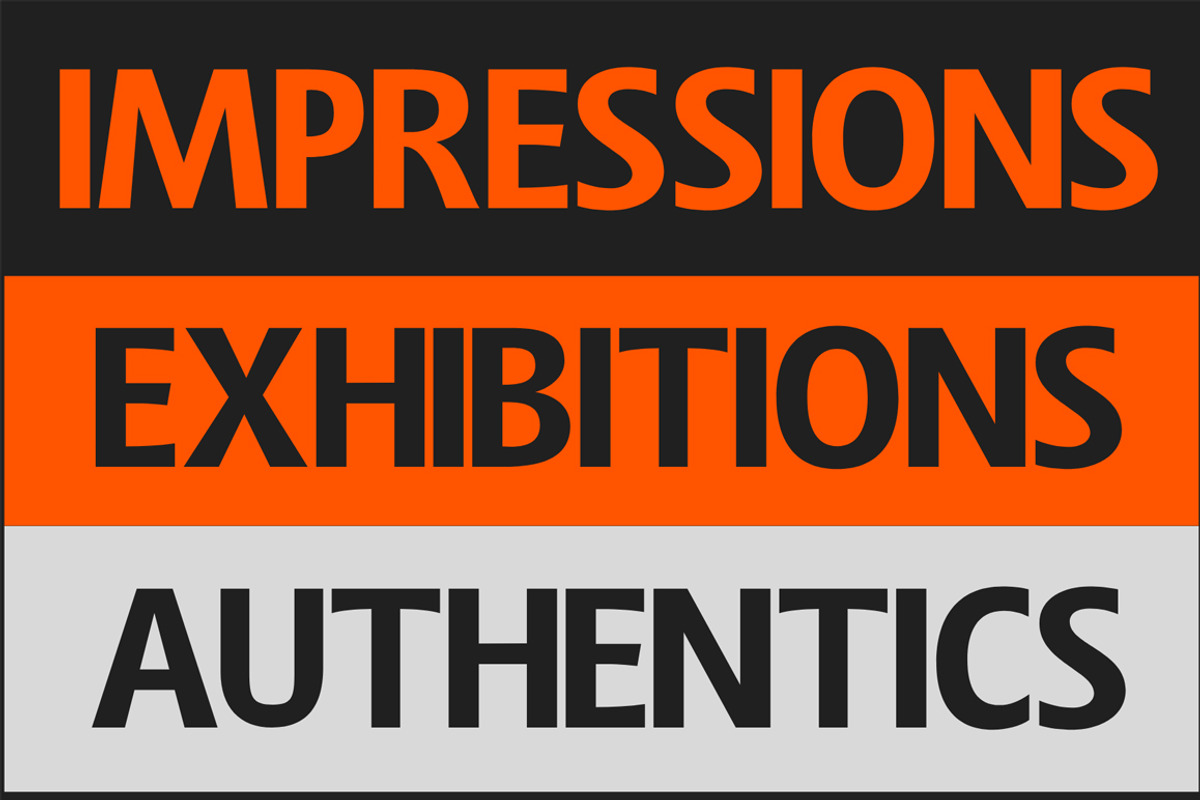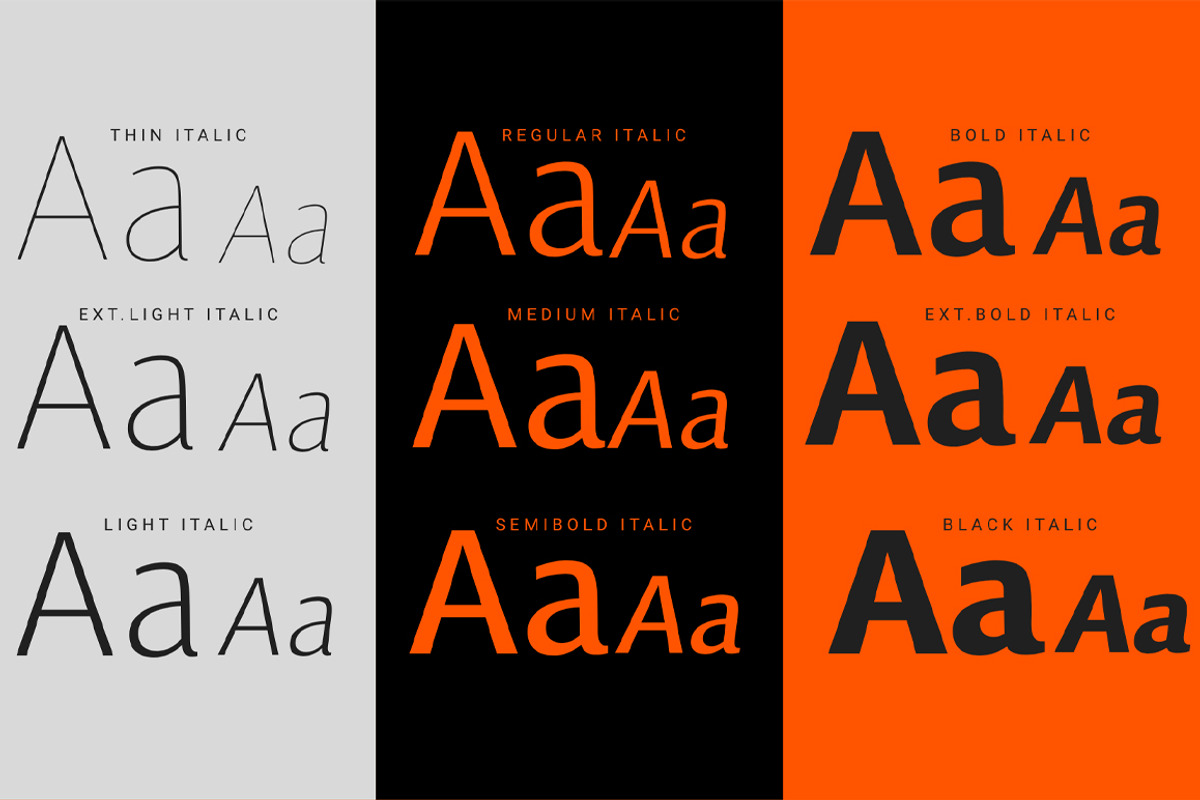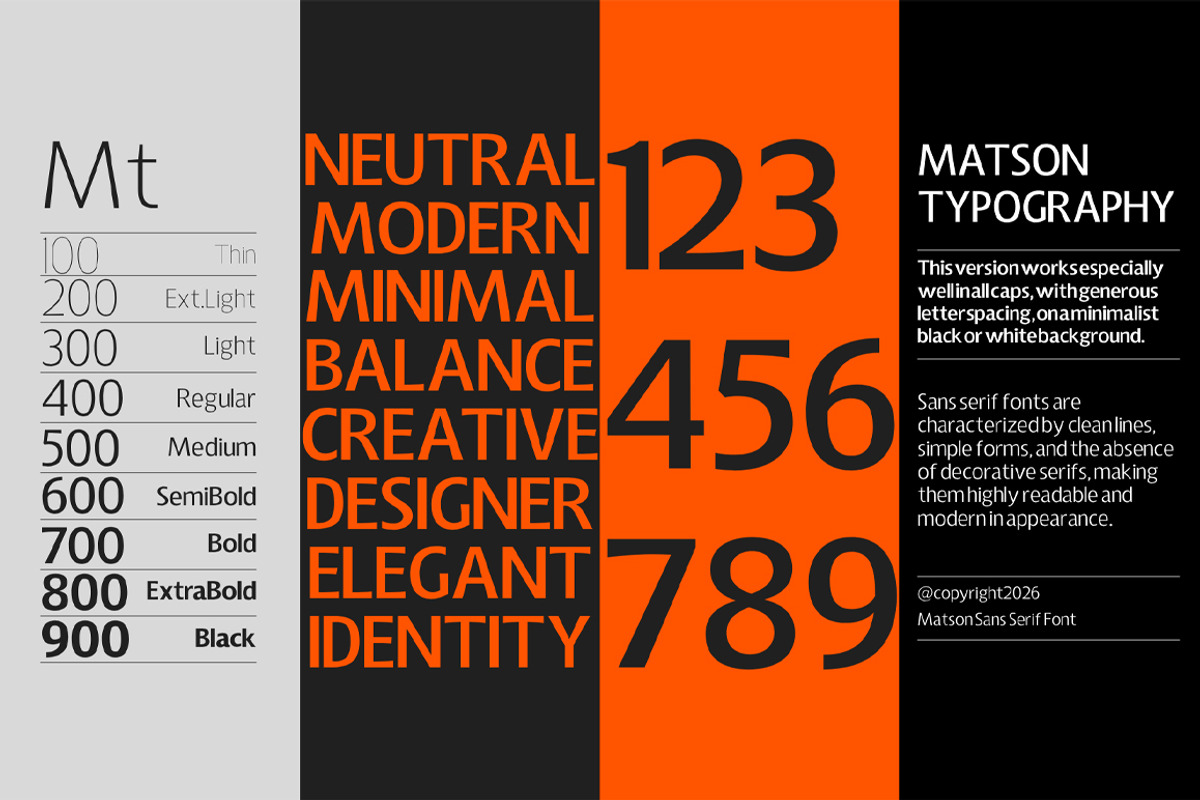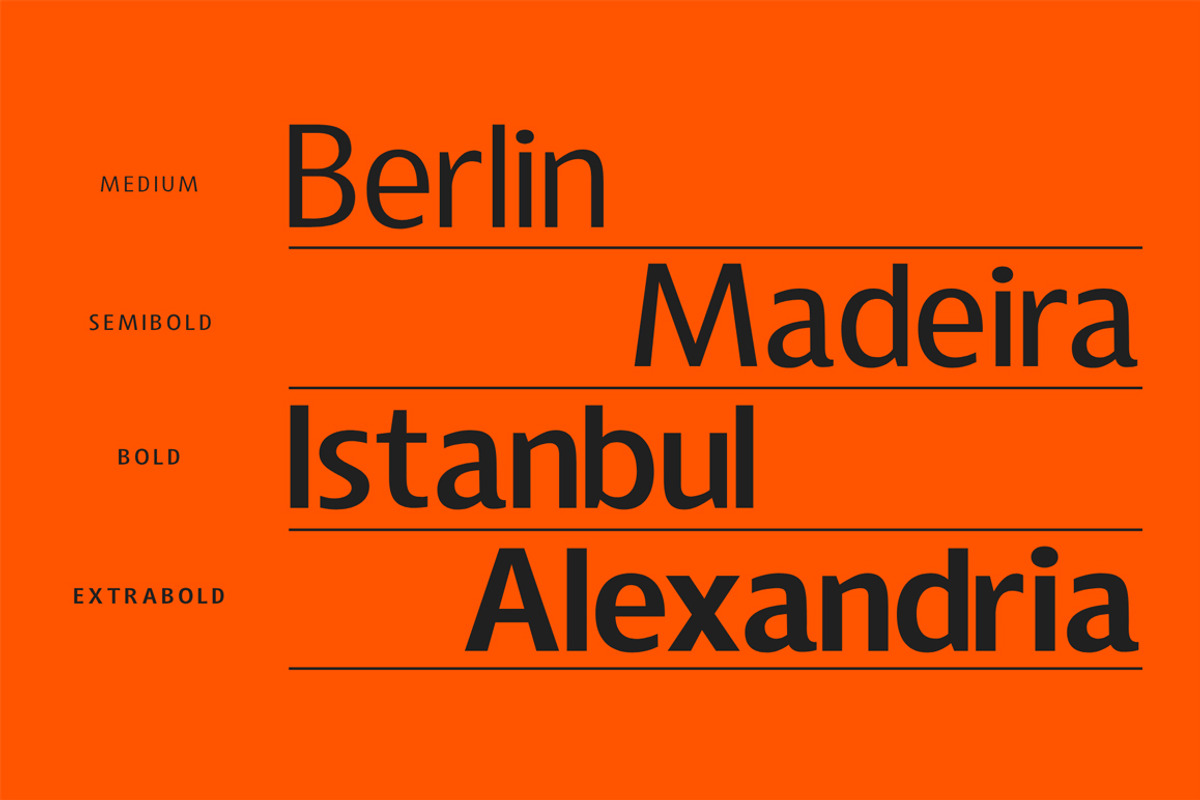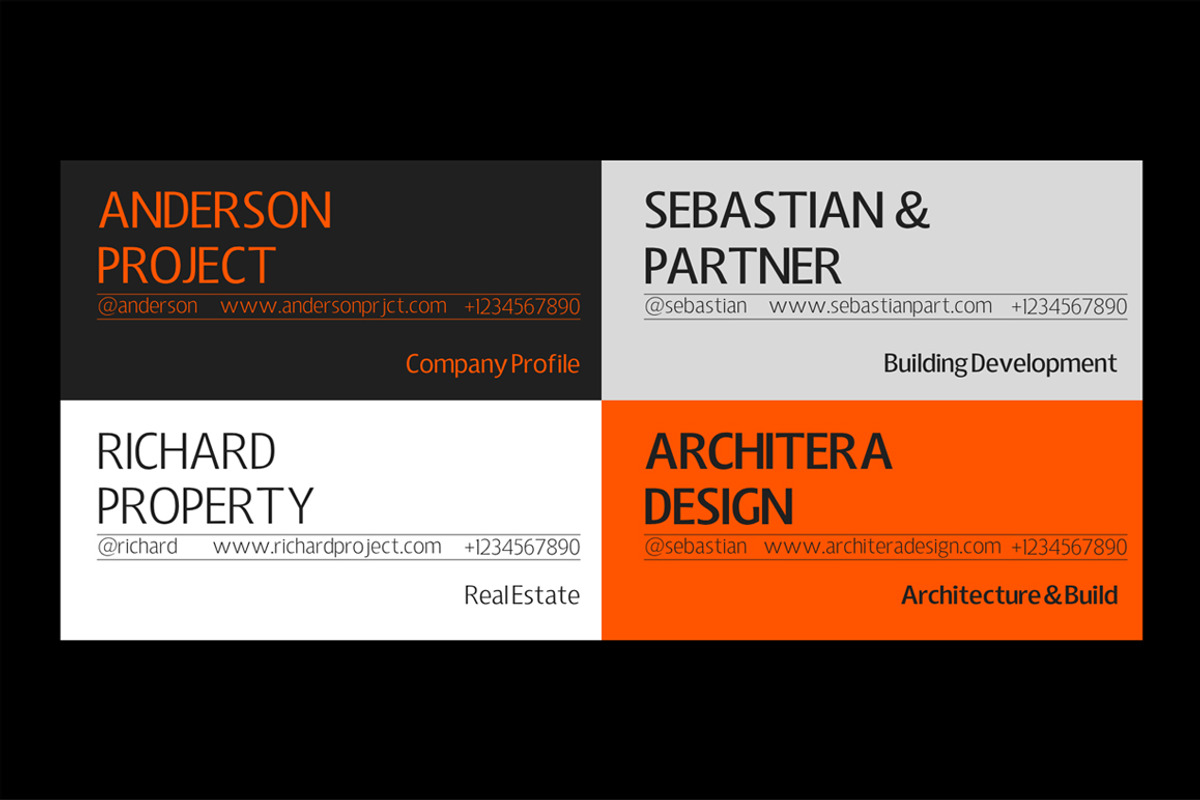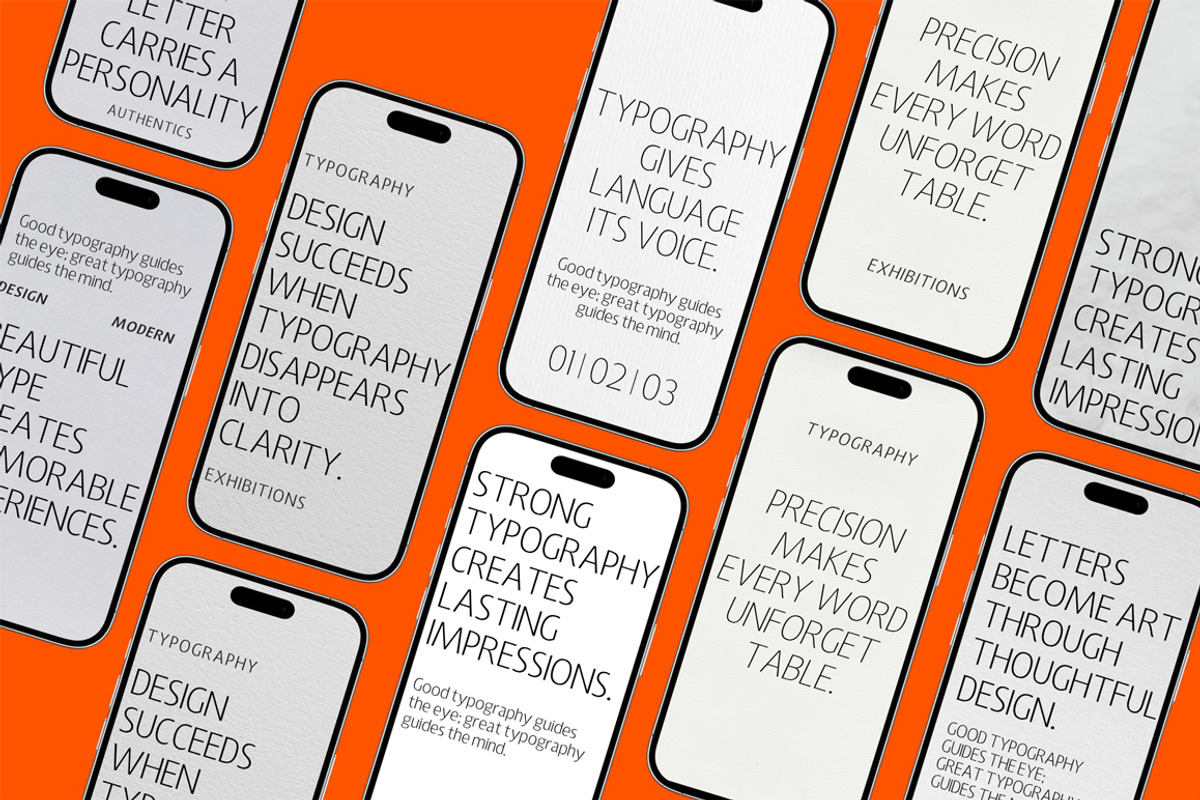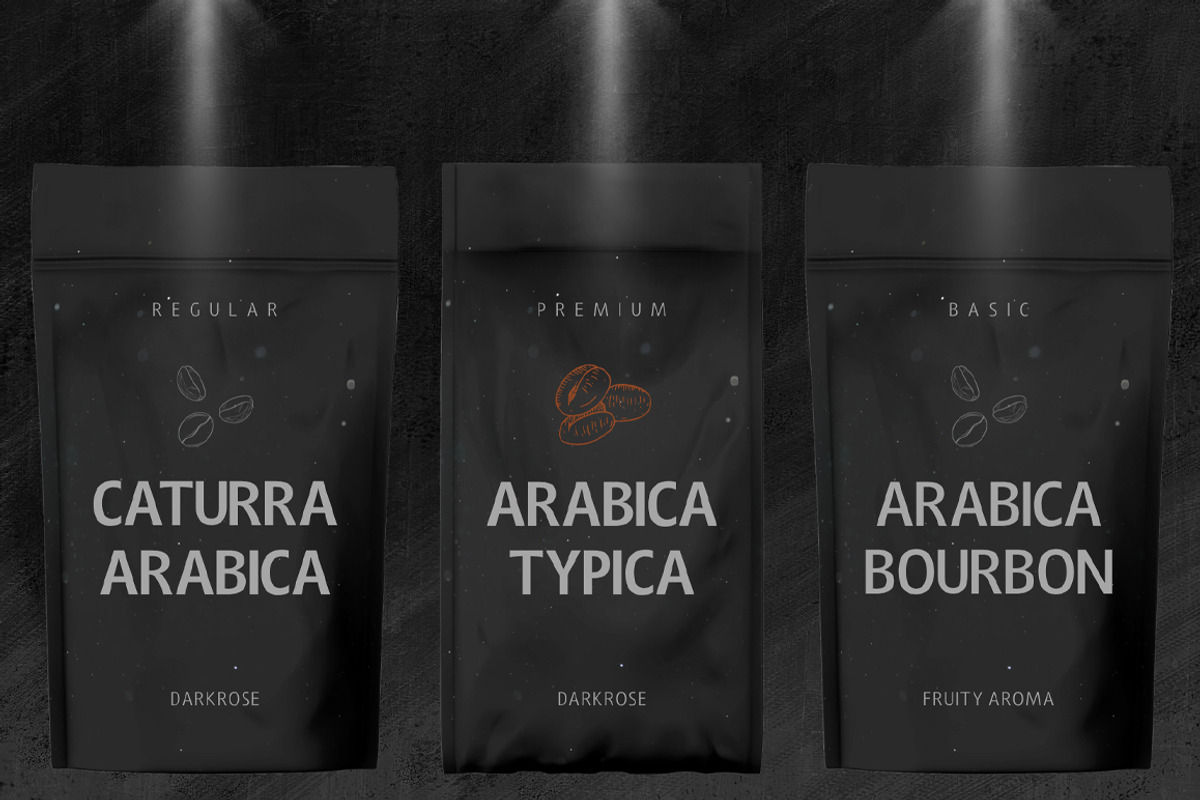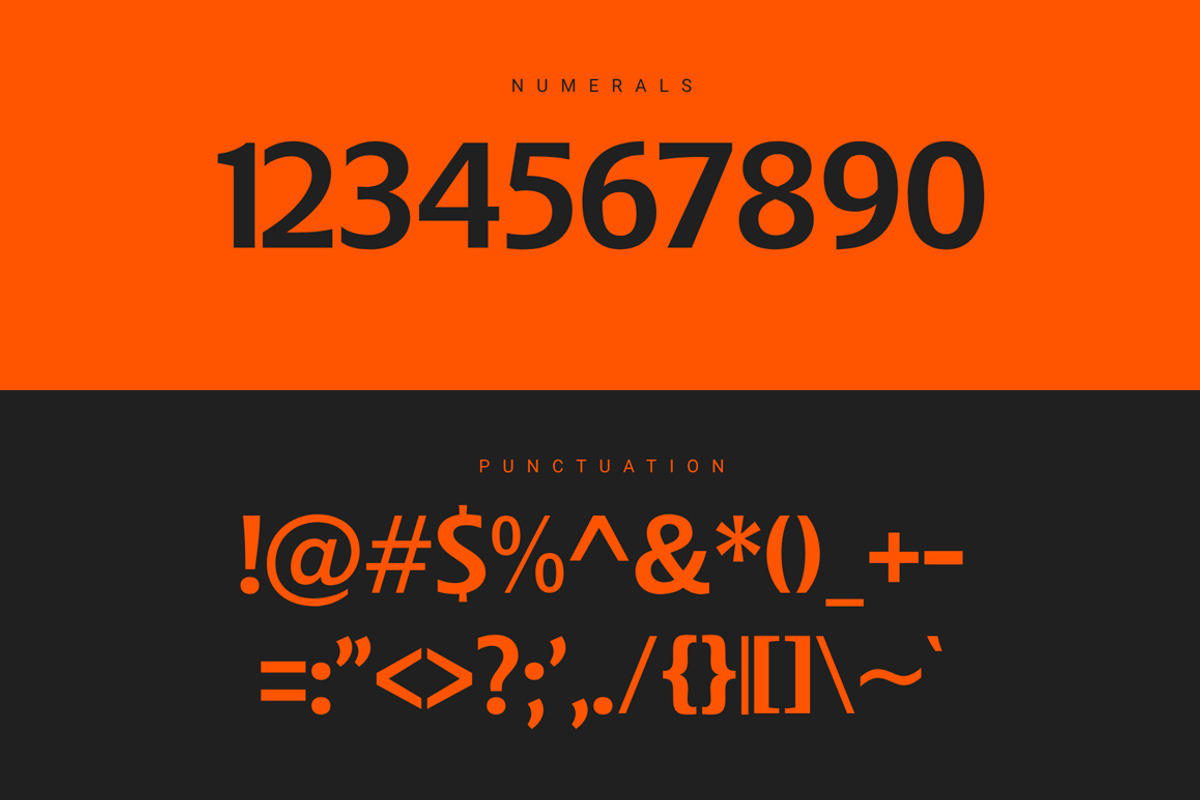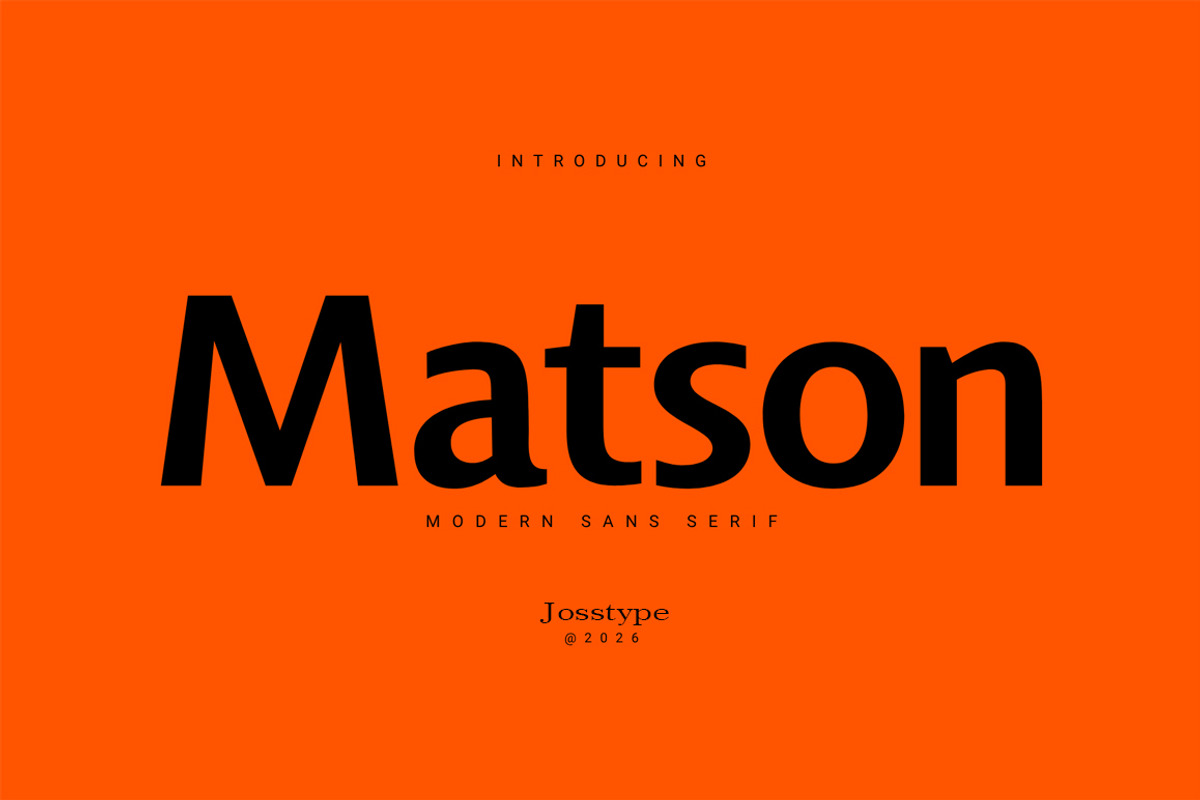
Matson Sans Serif
The Matson Sans-Serif font family offers a range of styles—including bold, light, upright, and italic—to suit your specific needs. It is ideally suited for home-based businesses, such as printing services, as well as for use across various electronic media.